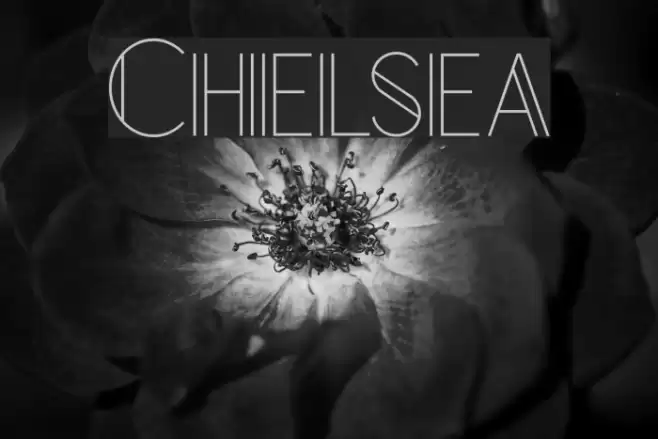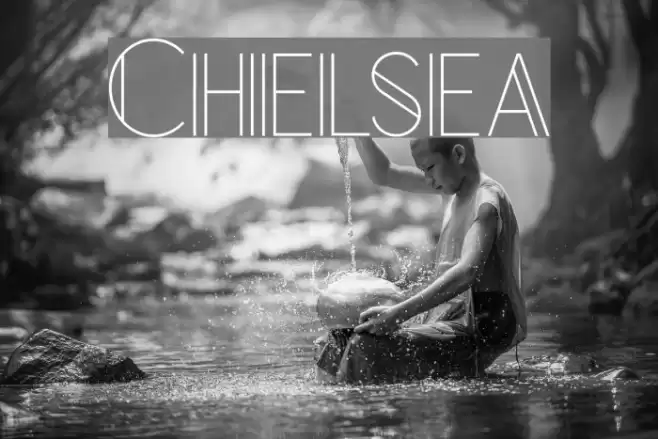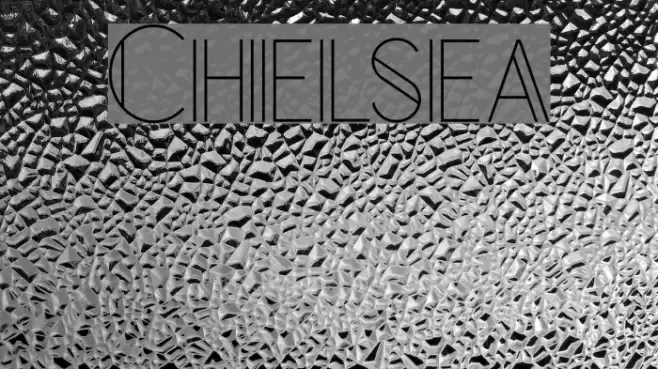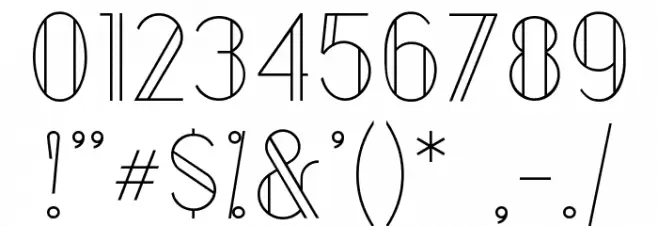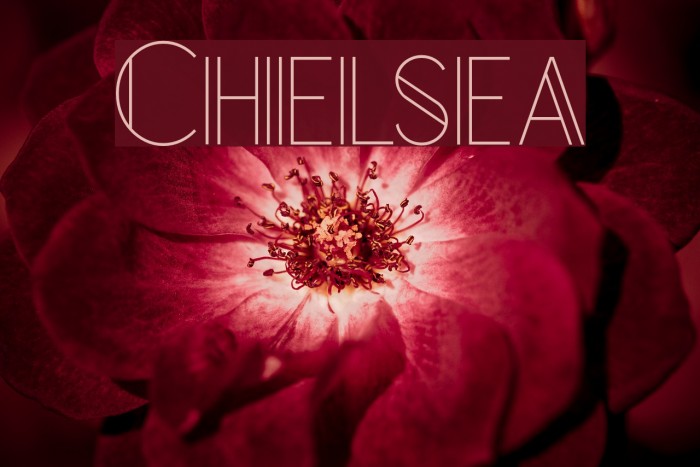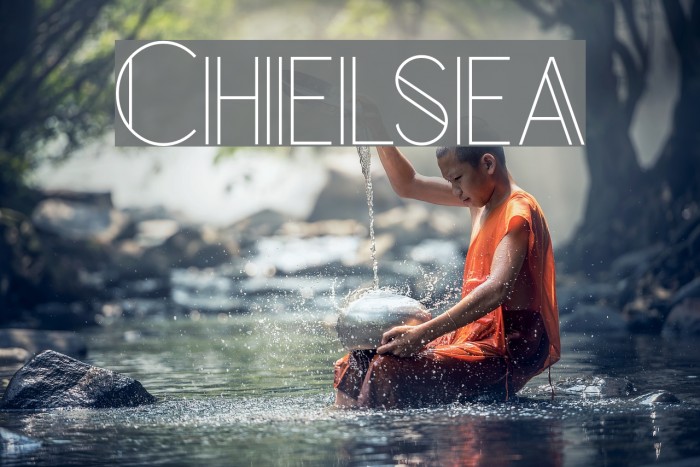
Chelsea Font
Chelsea Description
This font features a modern and stylish design with a geometric structure. The characters are composed of thin, clean lines with a distinct art deco influence. Each letter is crafted with precision, offering a sense of elegance and sophistication. The uppercase and lowercase letters maintain a consistent style, with a focus on verticality and symmetry. Numbers and special characters follow the same design principles, ensuring a cohesive look across all elements. The font's unique aesthetic makes it suitable for projects that require a contemporary and fashionable touch.
A modern, geometric font with art deco influences and thin, elegant lines from Uncategorized fonts.
- Proposed Projects: Ideal for branding, fashion magazines, luxury product packaging, and modern web design.